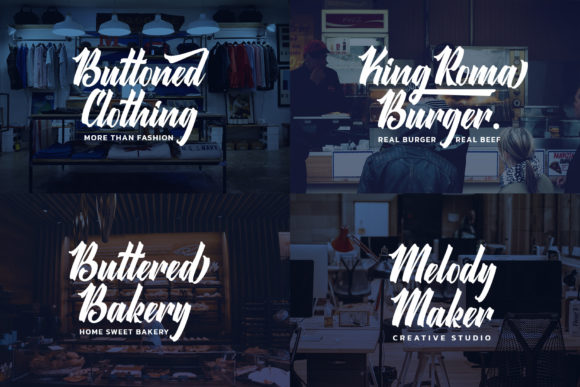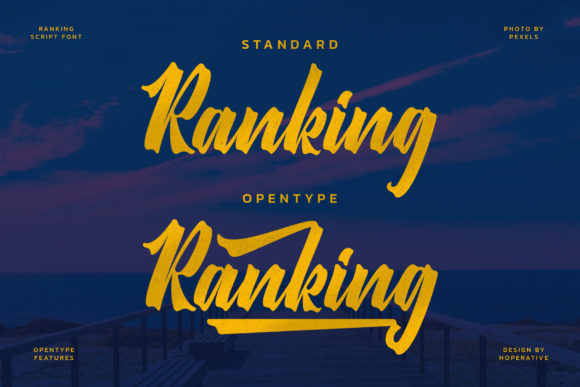
Ranking Font
db-ku.com - Script & Handwritten -- Ranking is a gorgeous and retro-styled script font crafted to add tons of stylish character to your designs. This font is PUA encoded, which means you can access all of the glyphs and swashes with ease!